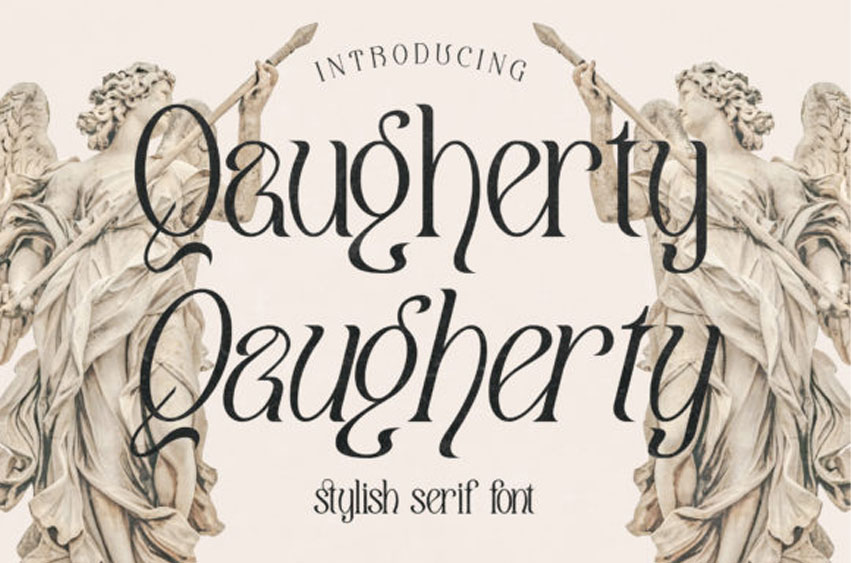
Qaugherty Font
Qaugherty Font is a delicate and stylish serif font. It is PUA encoded which means you can access all of the glyphs and swashes with ease!
It is perfect for an elegant & luxurious logo, book or movie title design, fashion brand, magazine, clothes, lettering, quotes, and so much more.